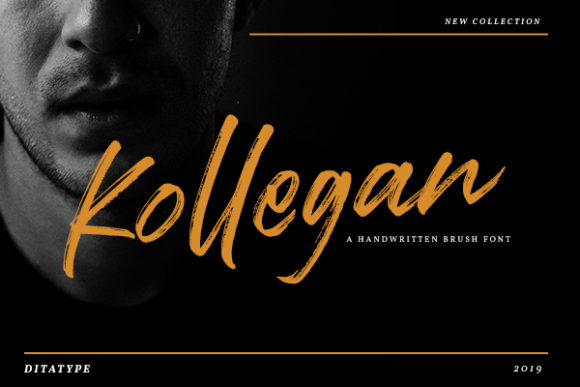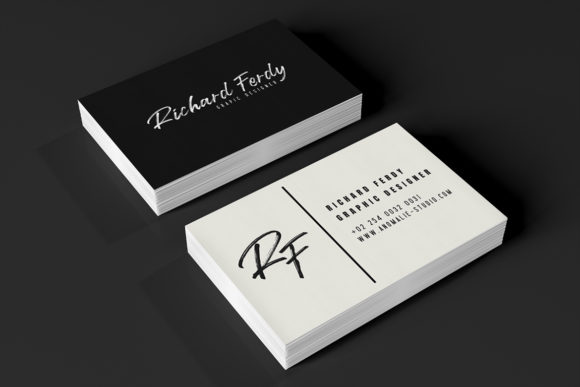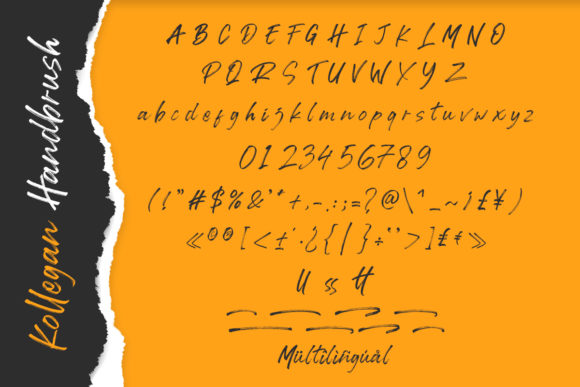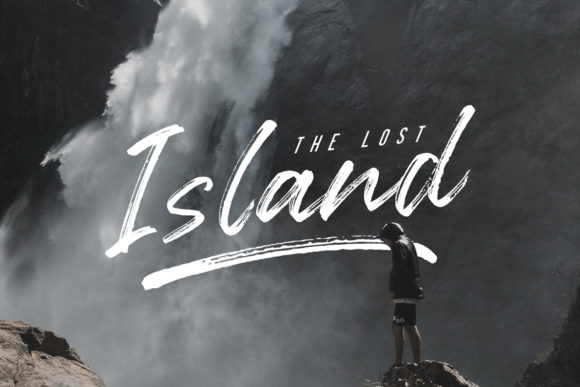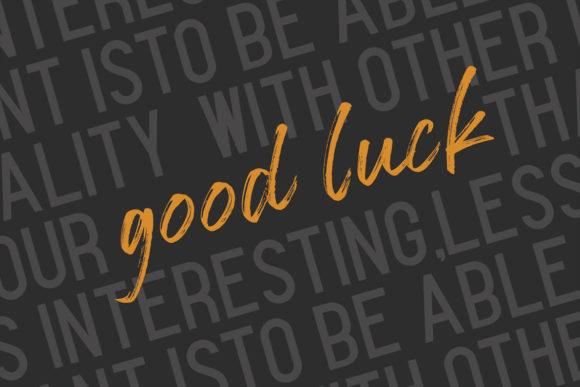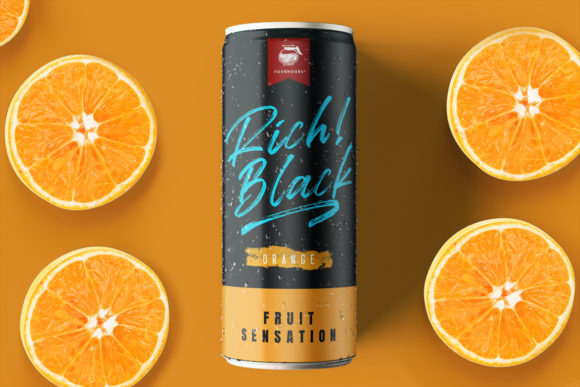
Kollegan Font
About Kollegan Font
Kollegan is a casual, fun handwritten font, created by using a brush pen. Clean and a little bit quirky, this font is the perfect fit for all of your logos, branding, social media, and crafty DIY projects.